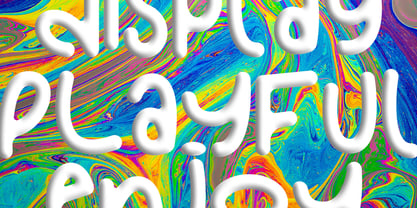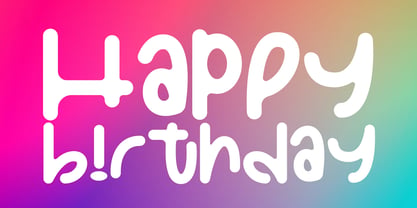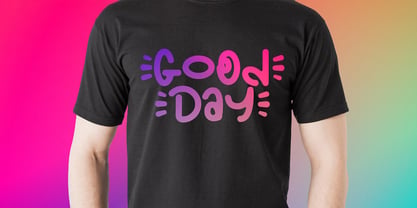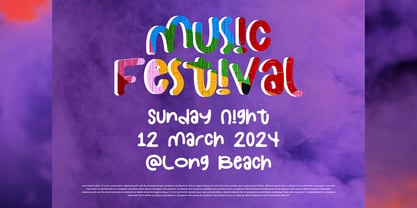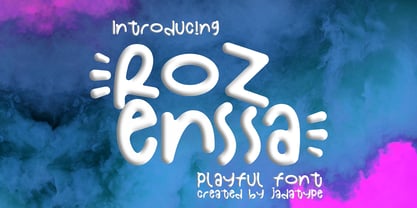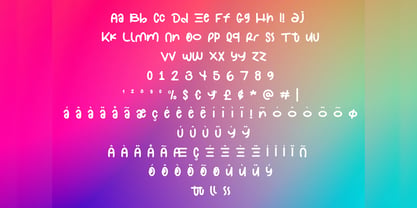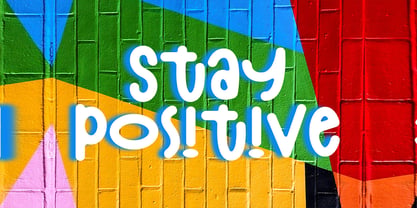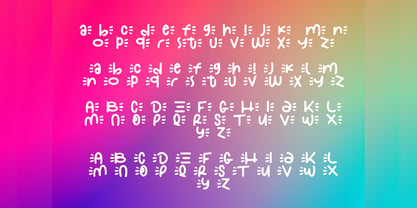
Rozenssa
by Jadatype
The Rozenssa Font Family was designed by Jada Akbal and published by Jadatype. Rozenssa contains 1 styles. More about this family
Rozenssa is a display font with a playful's vibe. suitable for ads, social media, products, t-shirts, and so on. contains standard English letters, numbers, punctuation, stylish alternates and several accents that support multilingualism.